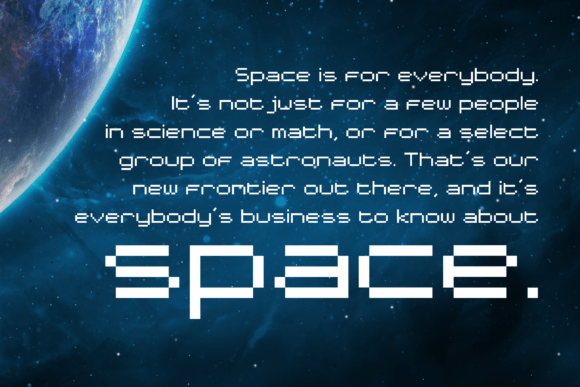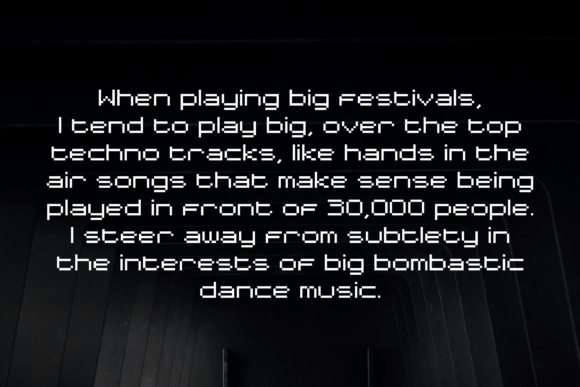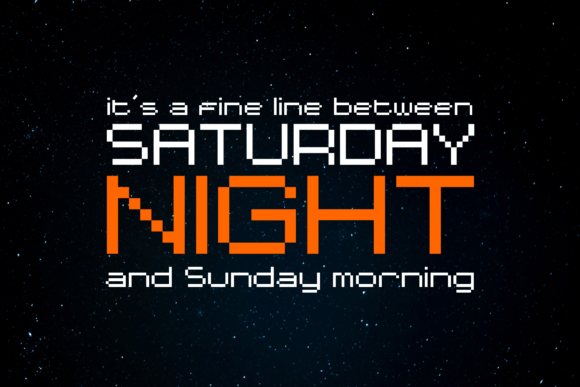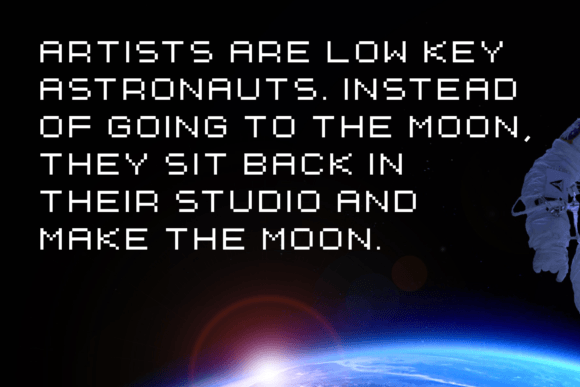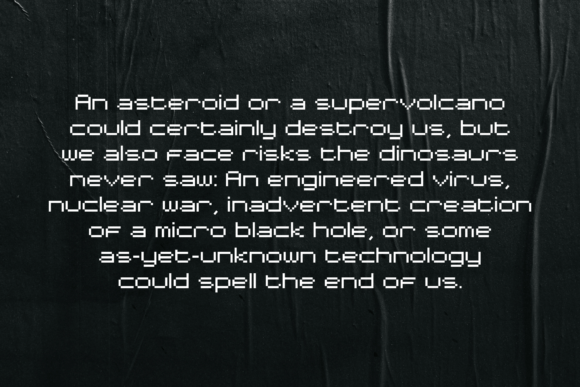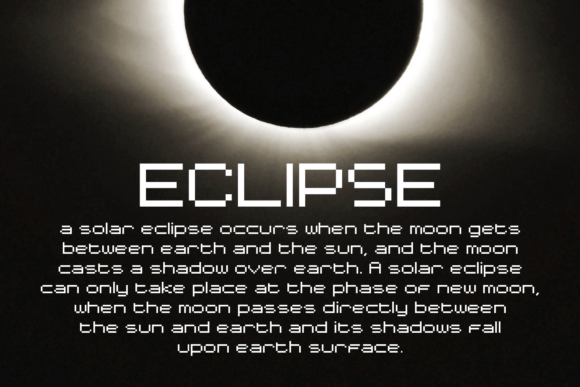
Introduction to Pixelow Font
Remember the thrill of creating pixel art in your favorite childhood game? The mesmerizing combination of tiny, colorful squares that formed a vibrant world? That same nostalgic magic is now available in the Pixelow Font, a vintage display typeface that’s perfect for designers looking to add a retro touch to their creative projects.
As a design resource, Pixelow Font offers unparalleled flexibility, allowing designers to elevate their work with a high-quality, pixel-perfect aesthetic that’s sure to captivate audiences. Whether you’re working on a game, movie title, eBook, or social media post, this font is sure to shine with its transparent background and customizable design options.
Key Features of Pixelow Font
- High-quality, pixel-perfect font design ideal for digital art, graphic design, and creative projects.
- Designed with a unique aesthetic, the Pixelow Font is perfect for adding a touch of retro flair to your creative projects.
Honest Review: Pixelow Font
I recently had the chance to work with the Pixelow Font in one of my creative projects, and I must say it’s a game-changer. As a designer, I’m always on the lookout for high-quality design resources that can elevate my work.
- What works well: ✨ The Pixelow Font is incredibly versatile and can be used for a wide range of creative projects, from digital designs to print materials. Its unique pixelated aesthetic adds a touch of nostalgia and retro charm that’s hard to resist.
However, there are a few limitations to keep in mind: ⚠️ The Pixelow Font is a fixed-width font, which can make it less suitable for body text or long blocks of text. Additionally, the font’s transparent background can sometimes make it difficult to read against certain backgrounds.
Overall, I’m impressed with the Pixelow Font’s potential and would definitely recommend it to designers looking for a unique and high-quality design resource.
Tips for Getting the Most Out of Pixelow Font
To get the most out of the Pixelow Font, use it in conjunction with other design elements, such as images and graphics. Experiment with different font sizes, colors, and arrangements to create unique and eye-catching designs.
The Pixelow Font is perfect for a variety of creative projects, including digital art, print media, presentations, and documents. It’s also great for branding and logo design, thanks to its unique and versatile design.